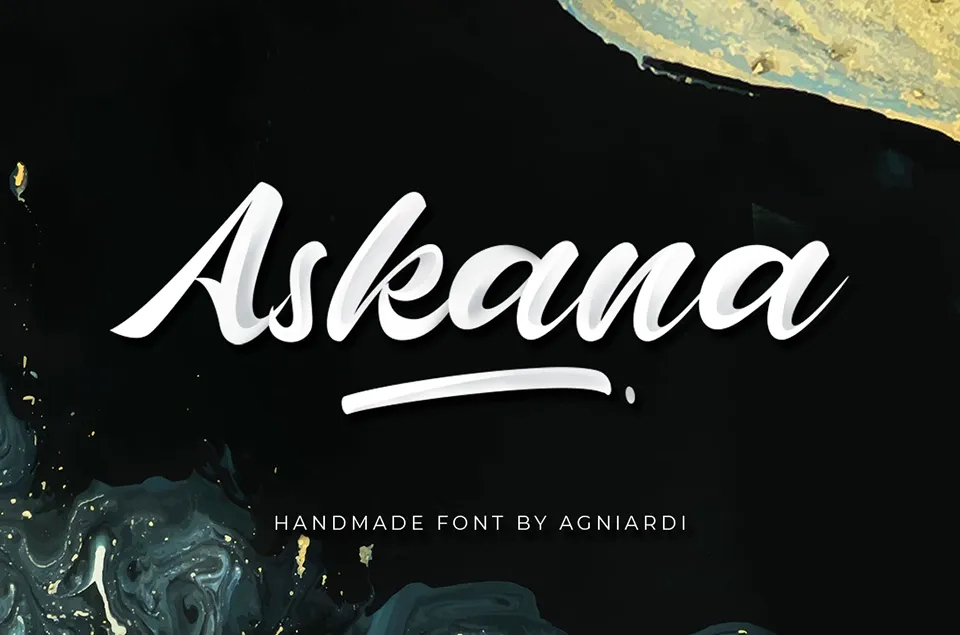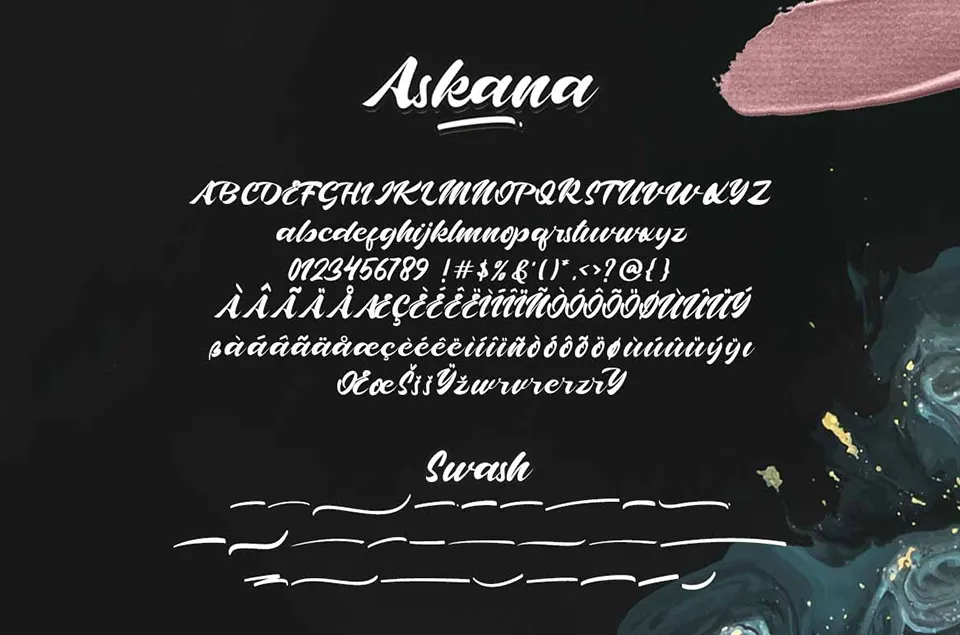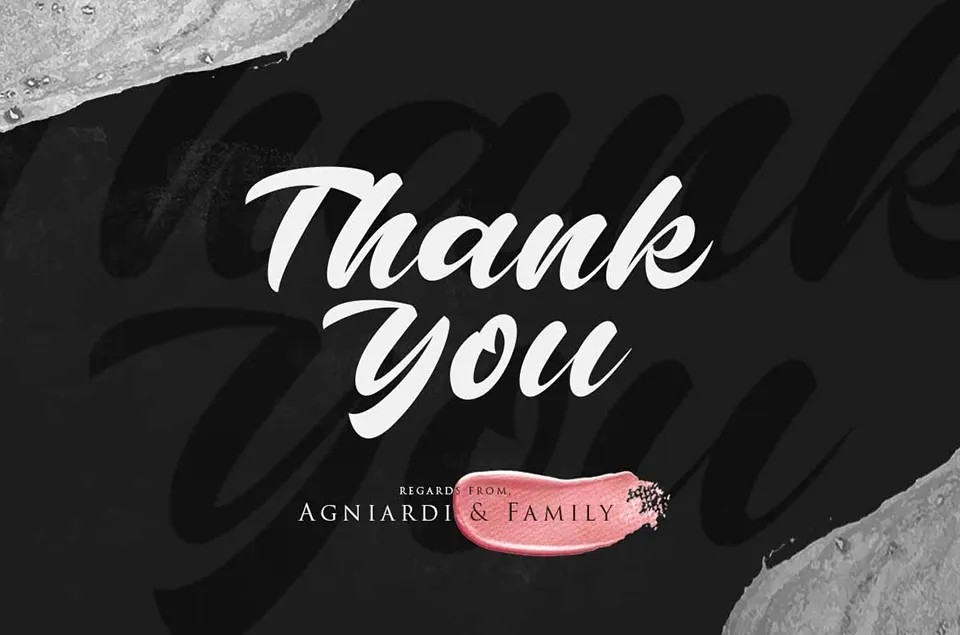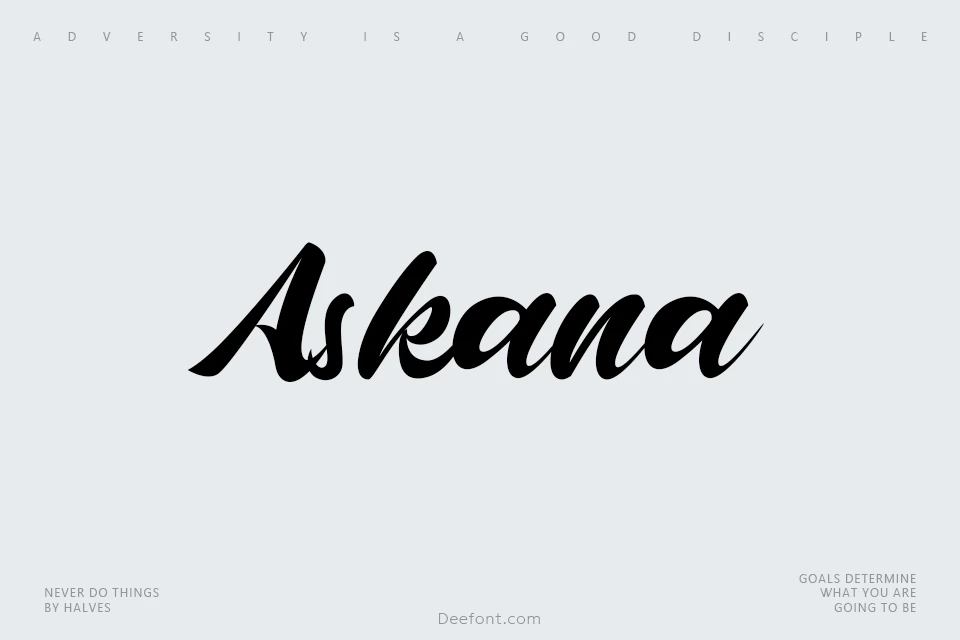
Askana Font
Askana Font is a beautiful handmade script font that exudes elegance and creativity. With its smooth, flowing letterforms and artistic style, Askana is perfect for adding a touch of sophistication to any design project. Ideal for branding, invitations, logos, and social media graphics, this font captures attention with its graceful curves and dynamic strokes. Its handcrafted feel brings warmth and personality to your work, making it suitable for both professional and personal applications. Whether you’re creating stylish headlines or decorative typography, Askana delivers a timeless aesthetic that enhances your designs with charm and refinement.